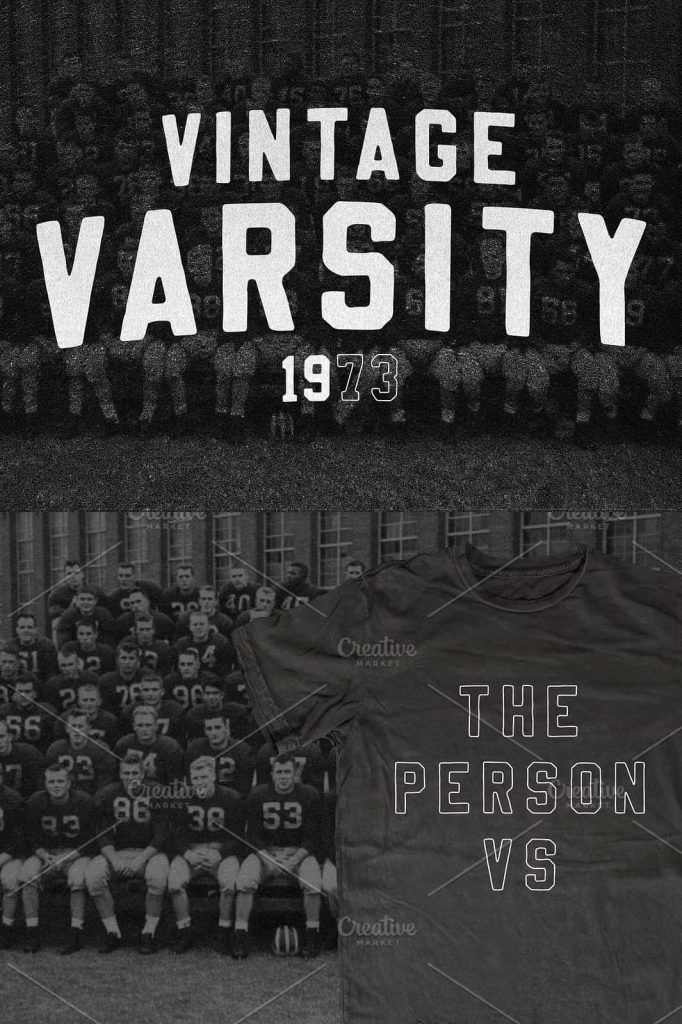
Vintage Varsity: A Classic Collegiate Font with Retro Attitude
Vintage Varsity is a bold, nostalgic typeface inspired by the iconic iron-on letterman jackets that defined high school style for generations. It draws directly from classic varsity lettering, channeling the confident spirit of athletic pride, school rivalries, and timeless Americana. This font embraces that unmistakable collegiate look that never truly goes out of style.
The design pays tribute to the kind of jacket your effortlessly “cool” uncle wore in high school and somehow still manages to wear today. Vintage Varsity captures that enduring charm, combining familiarity with a fresh, design-ready structure that works seamlessly in modern projects.
Inspired by Classic Letterman Jacket Typography
At its core, Vintage Varsity reflects the bold, blocky forms found on traditional letterman jackets. Each character feels strong, confident, and instantly recognizable. The font’s structure emphasizes clean edges and balanced proportions, making it ideal for designs that need to feel authoritative and timeless.
The lettering recalls iron-on patches, athletic uniforms, and school spirit apparel. This connection to physical materials gives Vintage Varsity an authentic, tactile quality. It feels grounded and bold, making it a powerful choice for statement typography.
Designed for Retro and Collegiate Aesthetics
Vintage Varsity thrives in projects that celebrate nostalgia. When paired with fuzzy felt textures, distressed backgrounds, or grainy overlays, the font instantly evokes vintage sportswear and classic campus culture. This pairing creates a cohesive retro look that feels intentional and visually compelling.
Designers can easily enhance the font’s impact by striking the fill and adding a bold stroke. This technique mimics traditional varsity lettering methods and opens the door to countless styling possibilities.
Perfect for T-Shirts, Logos, and Slogan Designs
Vintage Varsity excels in apparel design, especially retro slogan t-shirts and varsity-inspired merchandise. Its strong letterforms hold up well in print, embroidery, and screen printing, ensuring consistent results across different production methods.
The font also works exceptionally well for logos, team branding, sports clubs, and event graphics. It communicates confidence, tradition, and identity in a way that instantly connects with audiences familiar with collegiate culture.
Flexible Styling for Modern Designers
One of the strengths of Vintage Varsity is its adaptability. Designers can use it as a solid, filled display font or remove the fill and apply outlines for a classic athletic look. Adding strokes, shadows, or texture overlays allows the font to transform while maintaining its recognizable varsity identity.
This flexibility makes Vintage Varsity suitable for both bold headline typography and refined design systems. Whether you are creating a poster, social media graphic, or product packaging, the font delivers consistent visual impact.
Bold, Readable, and Built to Stand Out
Despite its retro inspiration, Vintage Varsity remains highly readable. The clear shapes and strong contrast ensure legibility at various sizes, from large-format designs to smaller accents. This balance between style and function makes it a reliable choice for professional design work.
The font commands attention without feeling overdesigned. It communicates strength and nostalgia while leaving room for creative experimentation.
Why Choose Vintage Varsity?
Vintage Varsity is more than a nostalgic throwback. It is a versatile, design-forward font that brings classic collegiate energy into contemporary projects. If your work needs to evoke school pride, athletic heritage, or retro Americana, this font delivers with confidence.
Whether you are designing a slogan t-shirt, branding a sports team, or crafting a vintage-inspired logo, Vintage Varsity gives your typography a timeless edge that feels both familiar and powerful.